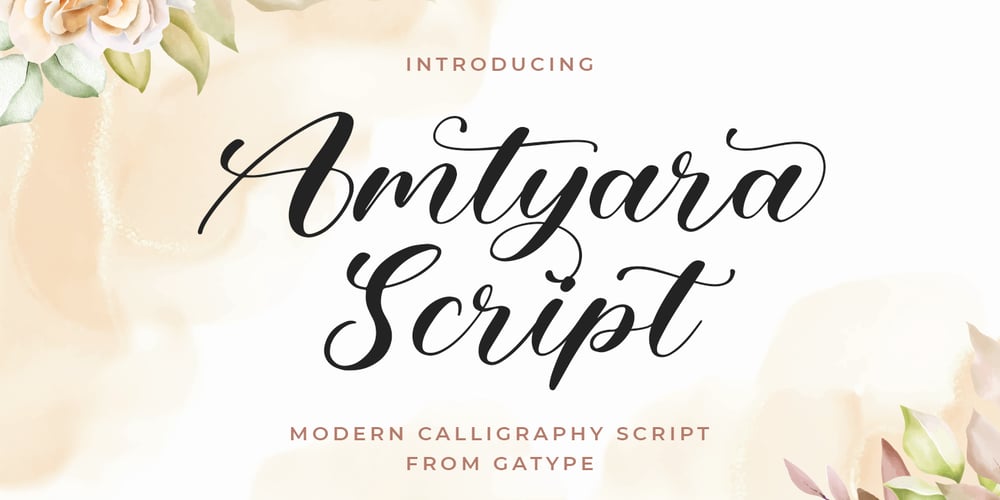
Amtyara Script
Amtyara Script font
Amtyara Script Font Family was designed by khaidir and published by Gatype. Amtyara Script contains 1 styles and family package options. Amtyara Script is a modern calligraphy design. This font is elegant and beautiful with a stroke. Can be used for various purposes. such as logos, product packaging, wedding invitations, branding, headlines, signage, labels, signatures, book covers, posters, quotes and others. Amtyara Script is encoded with PUA Unicode, which allows full access to all additional characters without having to design special software. Mac users can use Font Book , and Windows users can use Character Map to view and copy any additional characters to paste into your favorite text editor/app.If you need help or have any questions, let me know. I’m happy to help: Thanks & Happy Designing.